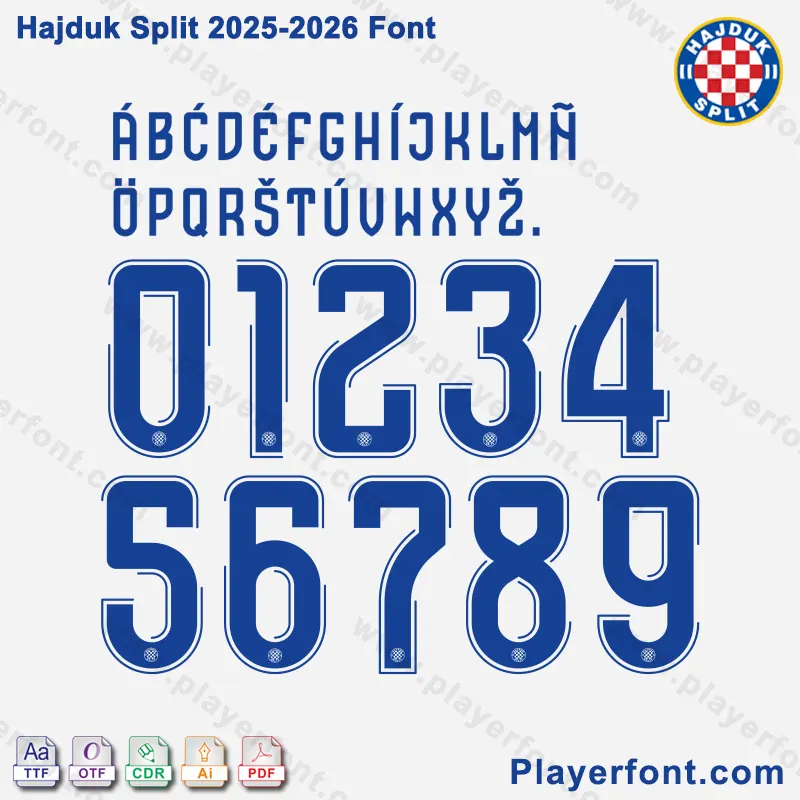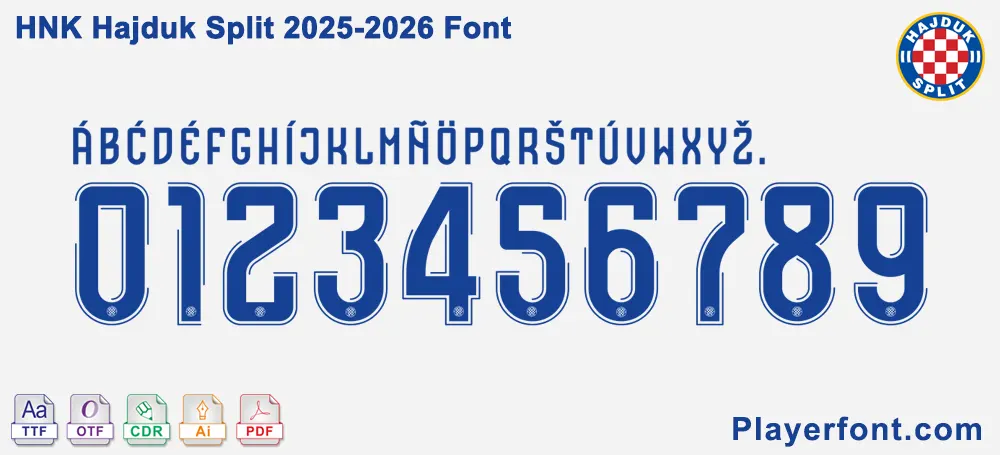
HNK Hajduk Split 2025-2026 Font Kit
Get the authentic HNK Hajduk Split 2025-2026 Font Kit for your creative sports projects. This premium digital download features the complete typography set used for the 25-26 season. The kit includes installable font formats (TTF, OTF) and fully scalable vector files (AI, CDR, PDF), ideal for high-quality jersey customization and sports apparel branding.
Elevate your design game with the official-style HNK Hajduk Split 2025-2026 Font Kit. Whether you are a professional sports designer or a passionate fan looking to restore a classic kit, this package provides everything you need for precision and clarity.
Key Features of This Kit:
• Complete Character Set: Contains all uppercase letters (A-Z), specific Croatian characters (Č, Š, Ž), and numbers 0-9 featuring the club’s subtle logo detail at the base.
HNK Hajduk Split 2025-2026 font kit preview with blue letters and numbers on white background.HNK Hajduk Split 2025-2026 Font Kit